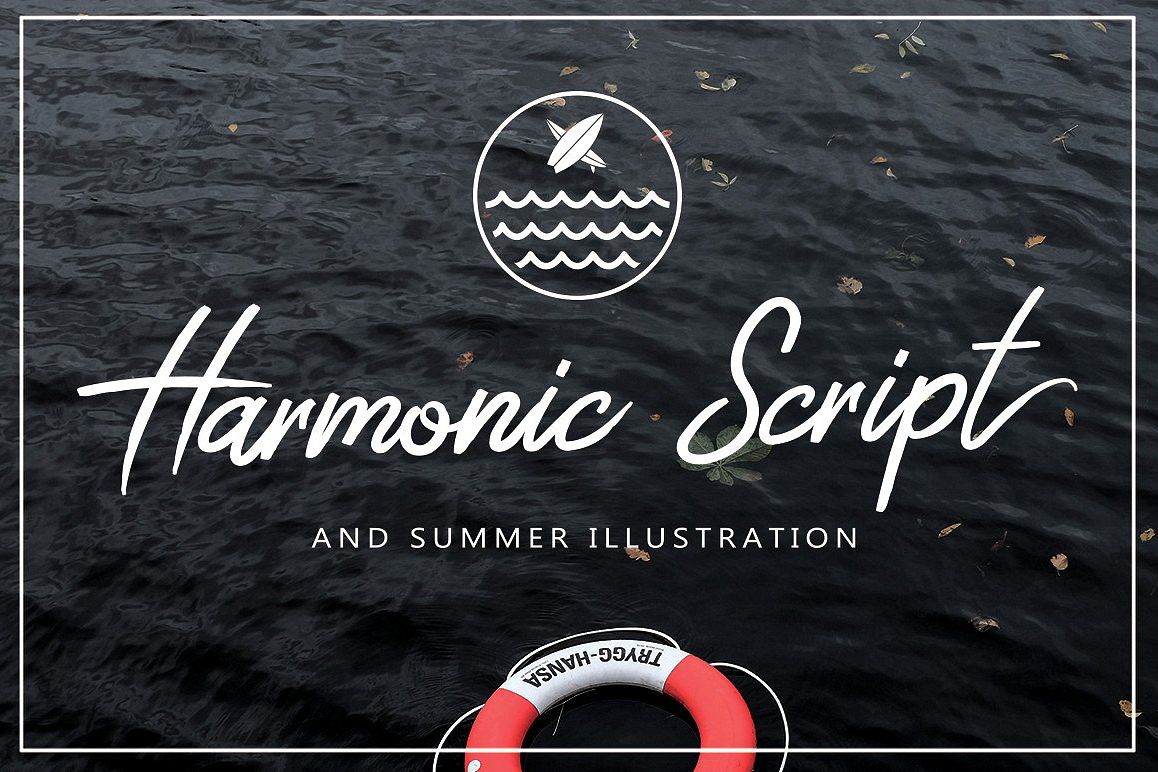
Harmonic Script With Summer Illustration Package Bundle
Harmonic swash
Harmonic Script
Harmonic Script is a modern bold script font. Harmonic can be used for logotype, website header, fashion design, Shop branding and much more.
Harmonic Script comes with manly elegant style, It
contains a full set of lower & uppercase letters, a large range of
punctuation, and numerals.
Harmonic Script comes with manly elegant style, It
contains a full set of lower & uppercase letters, a large range of
punctuation, and numerals.